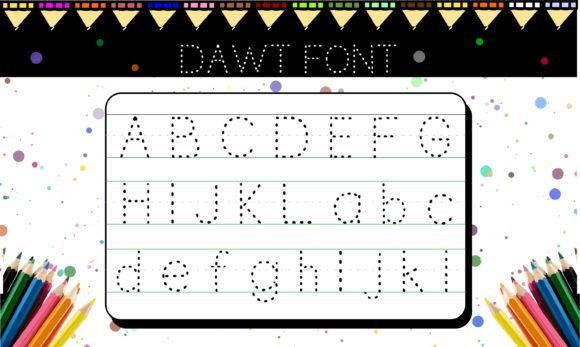
Unleash Your Creativity with the Dawt Font
Have you ever been stuck in a design rut, scrolling through endless fonts, searching for the perfect one to bring your vision to life? It’s like trying to find the missing puzzle piece – you know it’s out there, but where? One day, while browsing through a collection of unique fonts, I stumbled upon the Dawt Font, and my creative world was turned upside down. Its playful, dotted design instantly captured my attention and sparked a wave of inspiration.
The Dawt Font is a versatile, decorative font that’s perfect for adding a touch of whimsy to your designs. Whether you’re a graphic designer, artist, or simply a creative enthusiast, this font is a valuable addition to your toolkit. Its unique style makes it an ideal choice for creating eye-catching titles, headings, and even entire designs that exude personality and charm.
Dawt Font Key Features
- Font Family: Dawt Font is a sans-serif font family designed for digital use, making it ideal for various applications such as web design, digital signage, and mobile apps.
- Unique Characteristics: Dawt Font features a clean, modern design with subtle rounded edges and a balanced x-height, making it highly readable and visually appealing.
Dawt Font Review
I recently had the chance to work with the Dawt Font, and I must say it was an interesting experience. While it’s not without its flaws, there are some things that really stood out to me.
- The unique, modern aesthetic of the font is certainly eye-catching and could be a great addition to a design that needs a bold, statement piece.
- The font is highly customizable, with a wide range of options for color, size, and style, making it easy to tailor to your specific design needs.
- The font is well-suited for digital applications, such as website headers and social media graphics, where a bold, modern look is often in high demand.
- The font can feel a bit overwhelming or overwhelming at times, particularly when used in large blocks of text. This may be a concern for designers who prioritize readability.
- The font’s unique aesthetic may not be to everyone’s taste, and some designers may find it difficult to pair with other fonts or design elements.
Overall, I would say that the Dawt Font is a solid choice for designers who are looking to add a bold, modern touch to their work. While it may not be perfect for every project, it’s definitely worth considering for those who want to make a statement.
Getting the Most Out of Dawt Font
To get the most out of Dawt Font, try using it in bold or italic styles to add emphasis to your text. You can also experiment with different font sizes and colors to create visually appealing designs.
Dawt Font is ideal for use in creative projects, such as:
- Graphic design
- Typography-based art
- Use a graphics editor to create custom icons based on the Dawt Font characters.
- Use a clean and simple background to let the Dawt Font icons take center stage.
- Combine the icons with other whimsical design elements, such as hand-drawn illustrations or watercolor textures.
Can I customize Dawt Font to fit my specific design needs?
Yes, Dawt Font is a highly customizable font that allows you to adjust various font parameters, such as weight, width, and x-height. You can also use Dawt Font’s variable font features to create custom font styles and weights that fit your specific design needs. Dawt Font supports a wide range of font customization options, including font size, line height, and letter spacing.